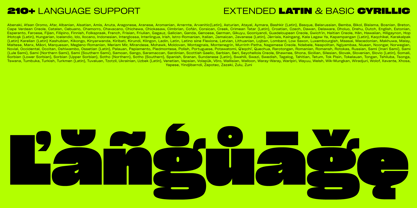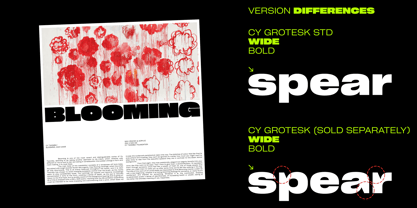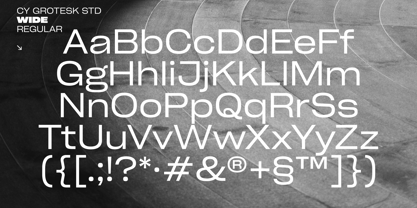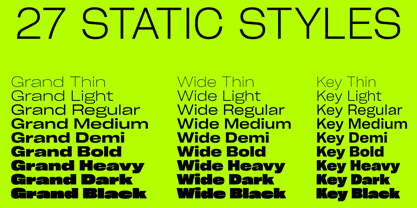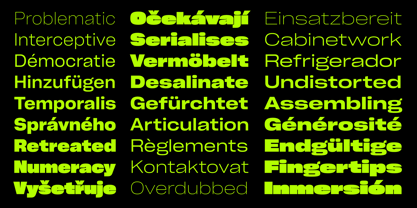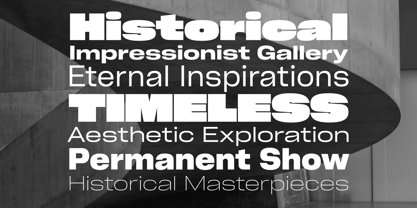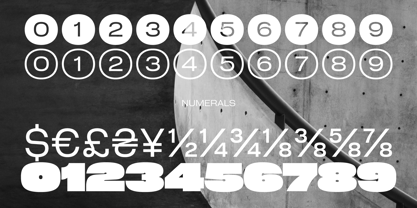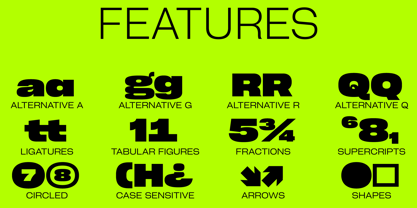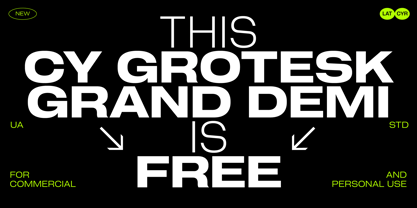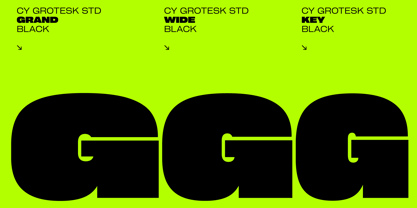
Cy Grotesk Std
The Cy Grotesk Std Font Family was designed by Maksym Kobuzan and published by Kobuzan. Cy Grotesk Std contains 28 styles and family package options. More about this family
Cy Grotesk Std is a modified version of the original Cy Grotesk, offering a more neutral and conventional approach to type design. The absence of sharp long angled spurs in the letters is its key distinction from the original, resulting in a cleaner and more versatile aesthetic.
It is a display typeface with an eccentric character and a special rhythm. Symbols feature smooth curves and tight apertures, balanced with large wedge incisions between the bowl and the stem. Built like a multifunctional workhorse, it has a wide range of font uses.
This type family consists of 27 styles that are adjustable in weight and width — or one variable font with 2 axes. From pure thin to radically black. From roomy key to catchy grand. All styles include an extended set of Latin characters and a basic Cyrillic.
Features:
– Total glyph set: 682 glyphs;
– 27 styles (3 widths x 9 weights) + variable;
– Support 210+ languages;
– Latin Extended;
– Cyrillic Basic.
OpenType features:
– Uppercase, lowercase;
– Proportional, circled, tabular numerals, superiors, inferiors, fractions;
– Punctuations and symbols;
– Arrows;
– Stylistic sets;
– Ligatures;
– Case-sensitive forms.